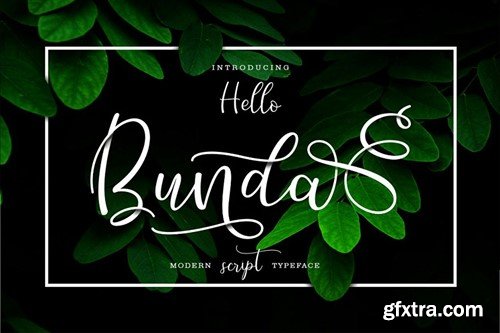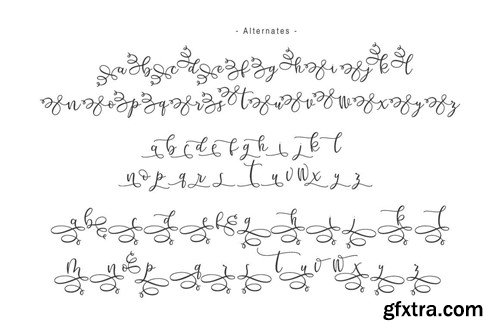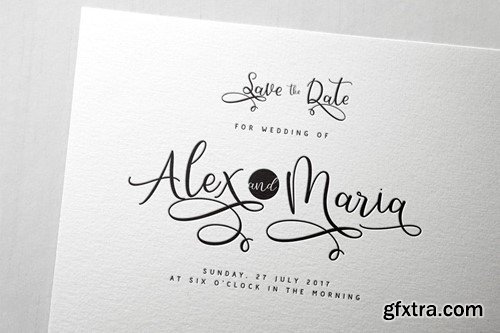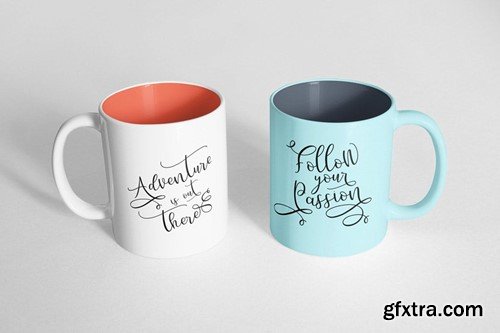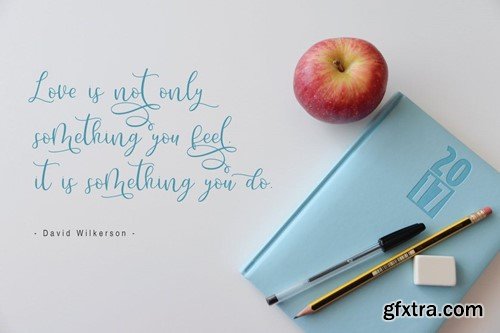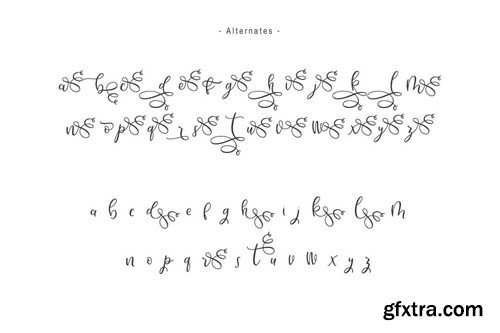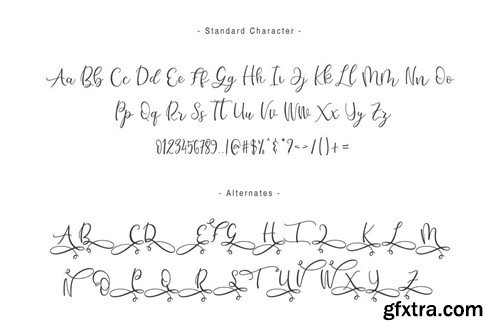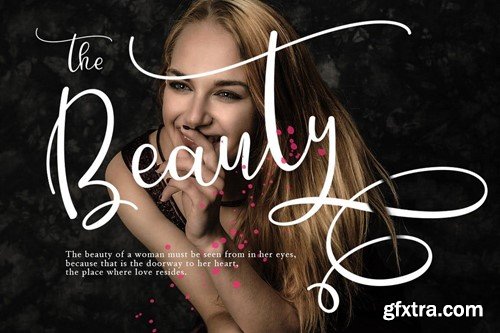
Hello Bunda Font 9FGRFGR
Greetings world! Introducing the Hello Bunda Script Typeface – a user-friendly font designed for effortless creation of stunning lettering. Simply input your text, and witness the immediate transformation into impressive results. Hello Bunda exudes a contemporary script style, meticulously crafted to enhance the beauty of every individual letter. Its versatility makes it ideal for a myriad of projects such as quotes, blog headers, posters, weddings, branding, logos, fashion, apparel, letters, invitations, stationery, and more. Key features of the Hello Bunda Script: For users without software supporting OpenType features like Adobe Photoshop or Illustrator, access all alternate glyphs through Font Book (Mac) or Character Map (Windows). Feel free to use this font for commercial purposes; no extended license is required. Everything you need is covered by the standard license, available at https://creativemarket.com/licenses. For guidance on accessing alternate glyphs, refer to this link: http://goo.gl/1vy2fv. If you intend to use the font in Microsoft Word, consult the article provided at http://www.magpiepaperworks.com/blog/using-opentype-fonts-in-microsoft-word/. For any additional support or inquiries, don't hesitate to reach out.